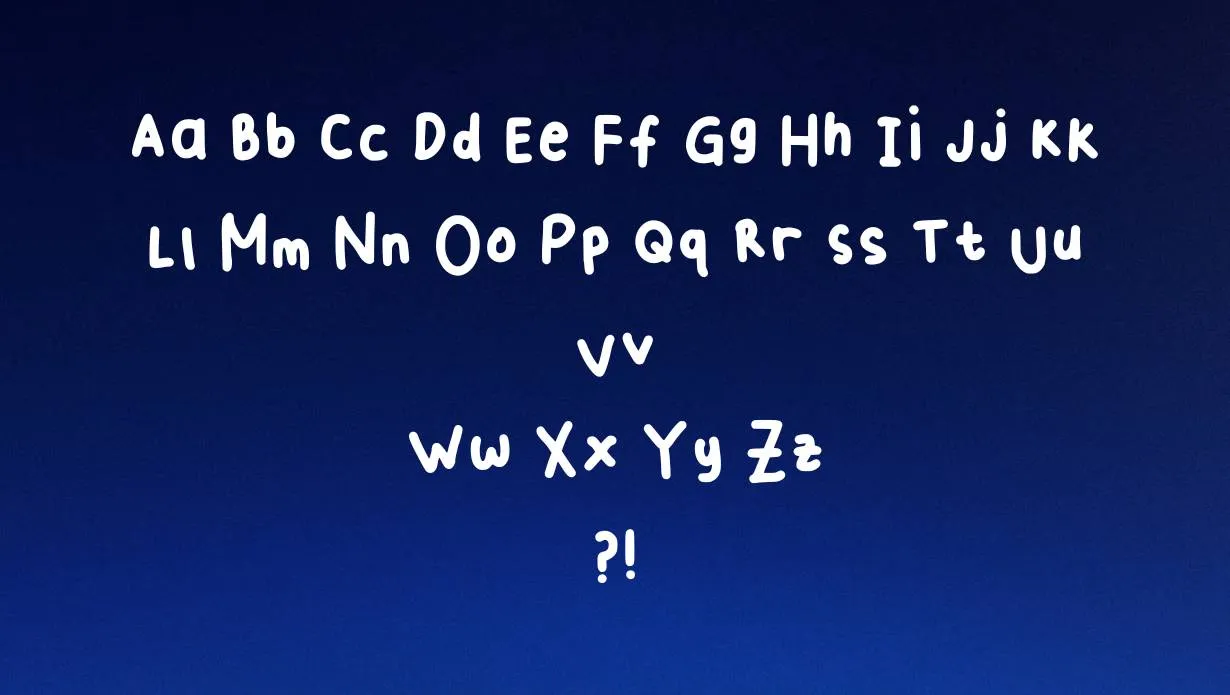
The whimsical typeface is like a friendly companion that brings joy to your words. With its soft curves and approachable look, it infuses a fun and upbeat energy into your text.
Using this font is like turning your words into a celebration, where each letter is like a balloon floating in the air. It’s for those who want their text to feel like a warm hug or a burst of laughter. The bubbly font turns your words into a party, creating a joyful atmosphere.
| Name | Bubbly Font |
| Designer | Gatype |